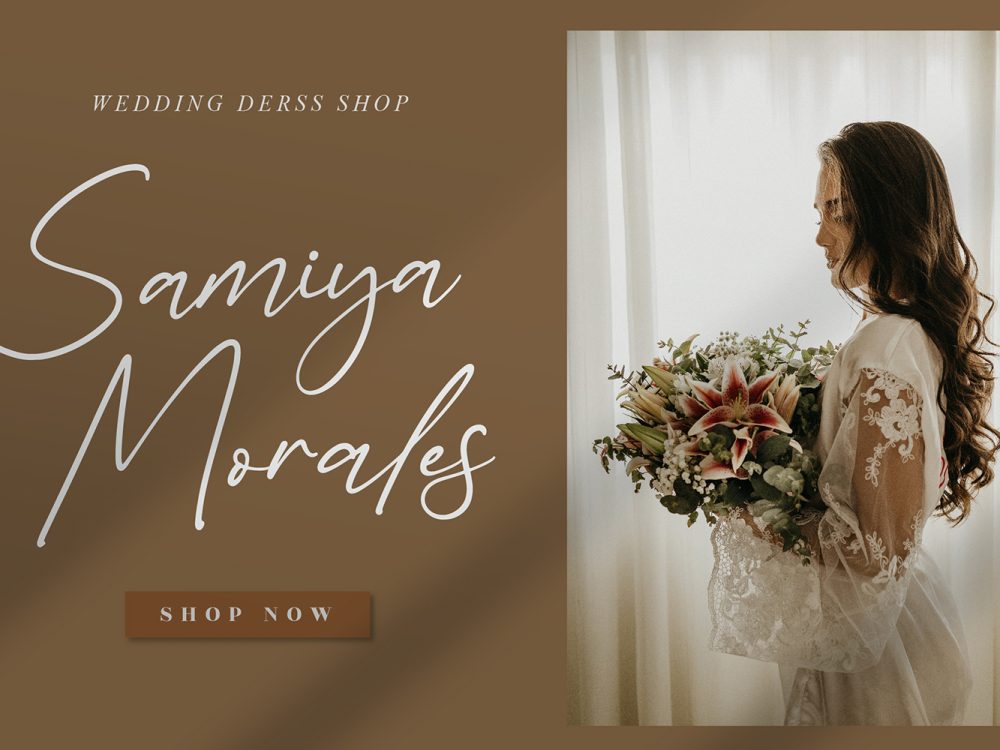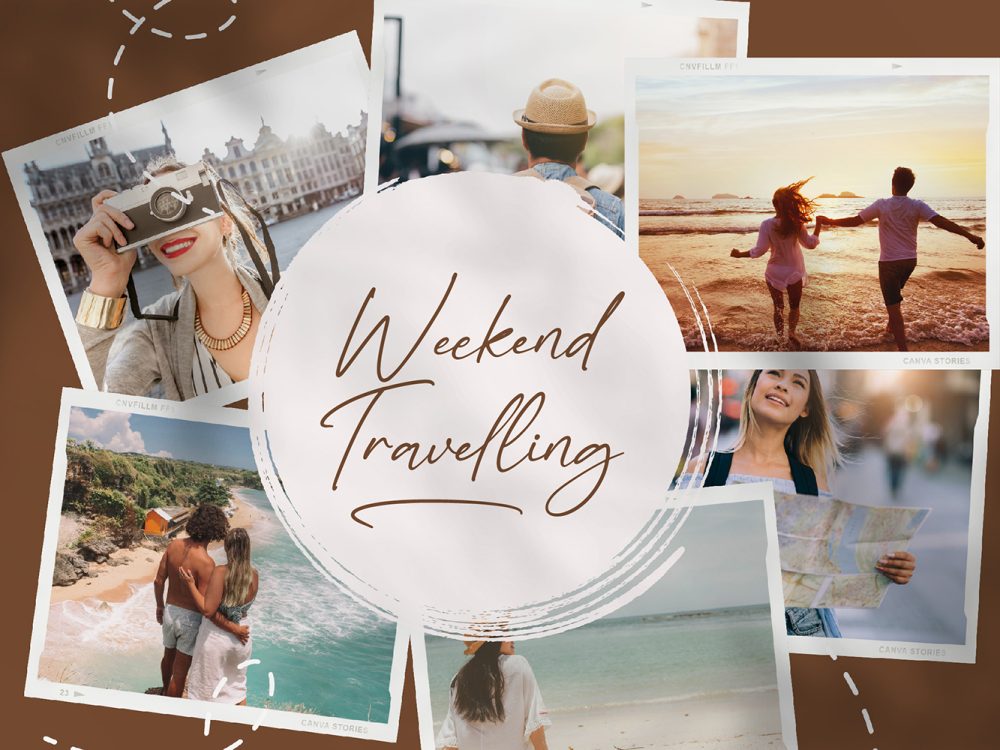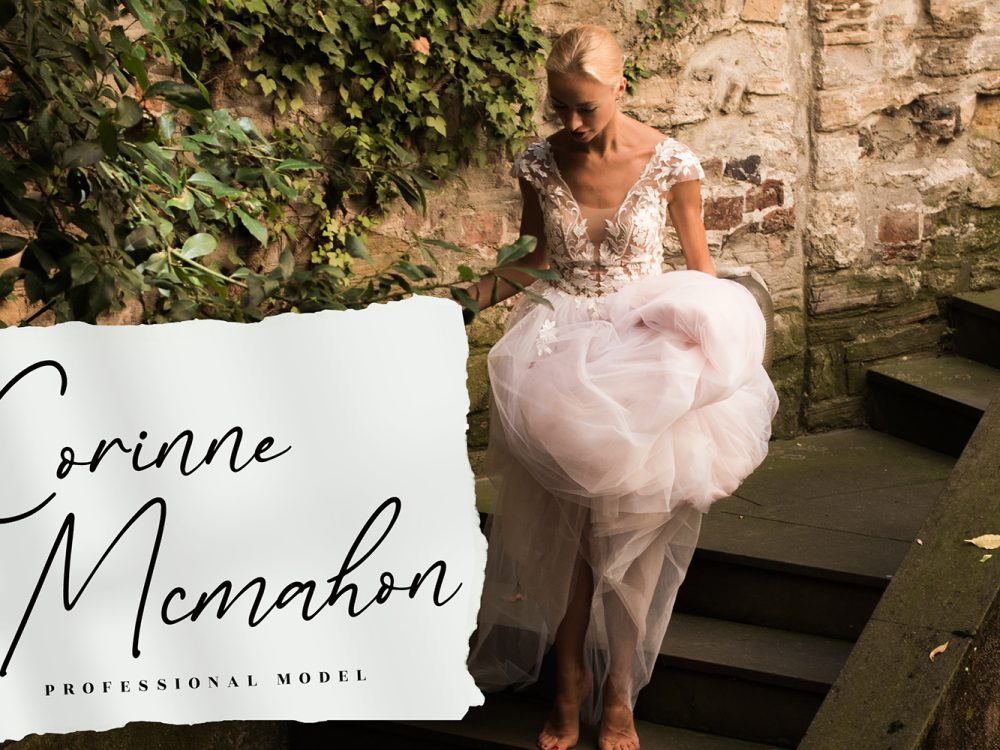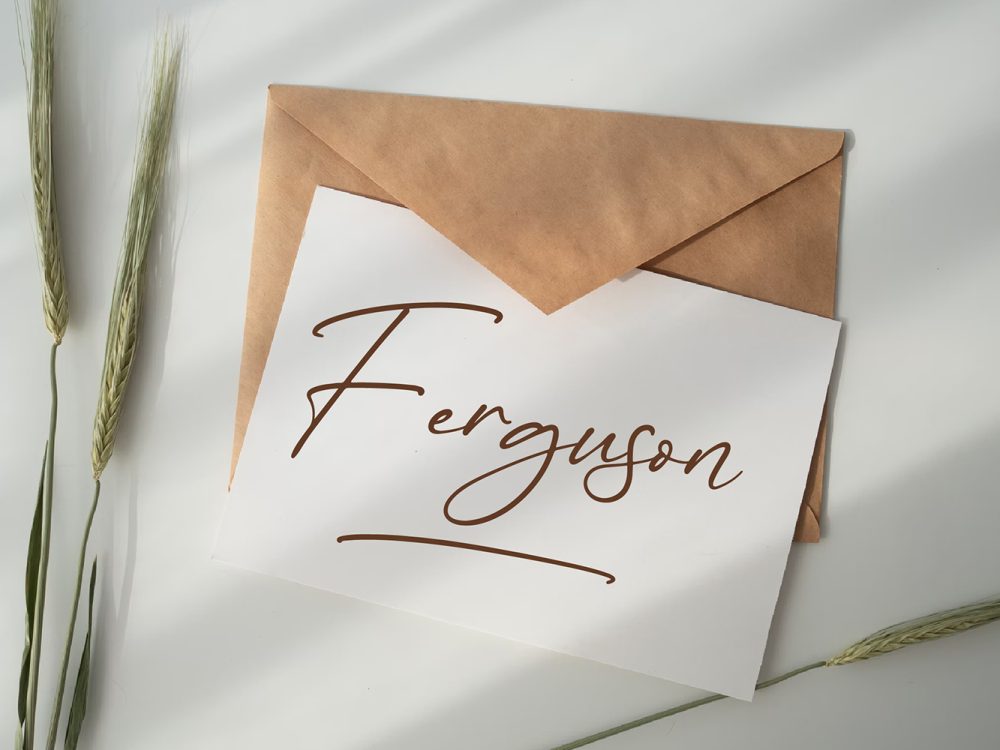
Experience the enchantment of Thundersign Helgeria Free Font, a meticulously crafted script font that embodies a touch of exquisite elegance. Whether you seek fonts for enhancing your Instagram presence or calligraphy scripts for engaging DIY projects, this font possesses the power to transform every creative concept into a genuine masterpiece. If you like it don’t forget to check out the full version.